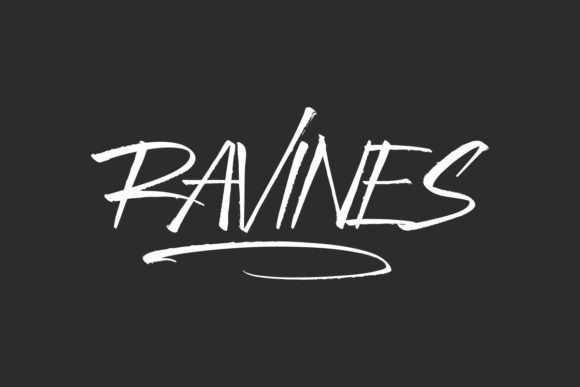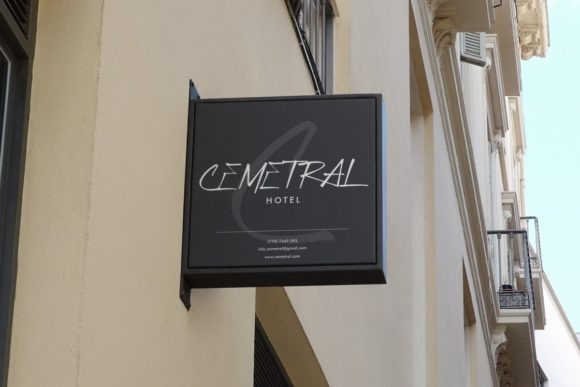
Ravines Font
Ravines is a unique brushed display font, defined by a rough edge effect. Ravines will be fit for headlines, advertising, product, packaging, promotion, tittles and more. This font is PUA encoded which means you can access all of the glyphs and swashes with ease.